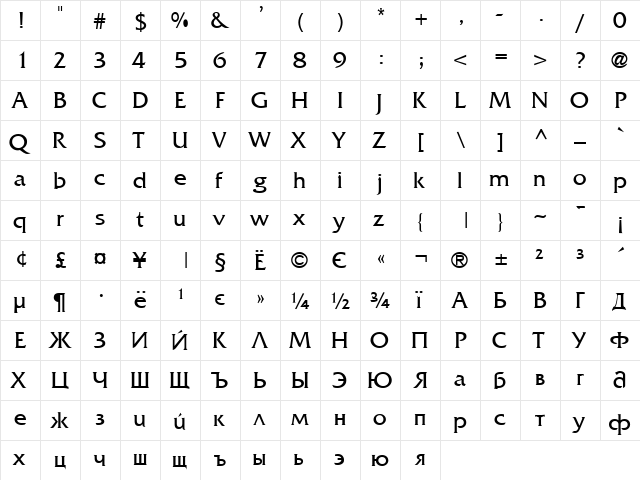
Fritz Quadrata Cyrillic Regular
Design Context for Fritz Quadrata Cyrillic Typeface
Fritz Quadrata Cyrillic offers clean, dependable letterforms without strong stylistic allegiance, making it a practical choice for designers who need flexibility.